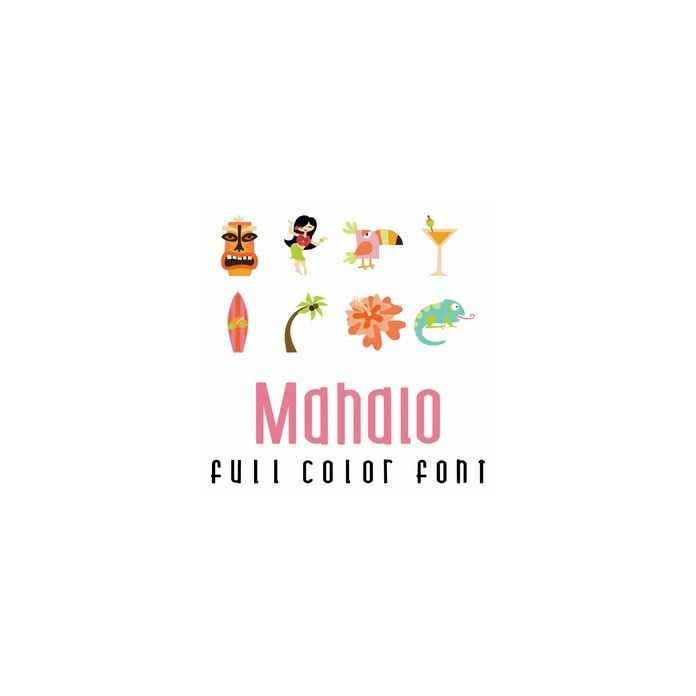
This adorable full-color doodlebat font features 26 Hawaiian and Tribal themed images. Perfect for cards, crafts, gifts, decor, scrapbook pages, planner stickers and more!